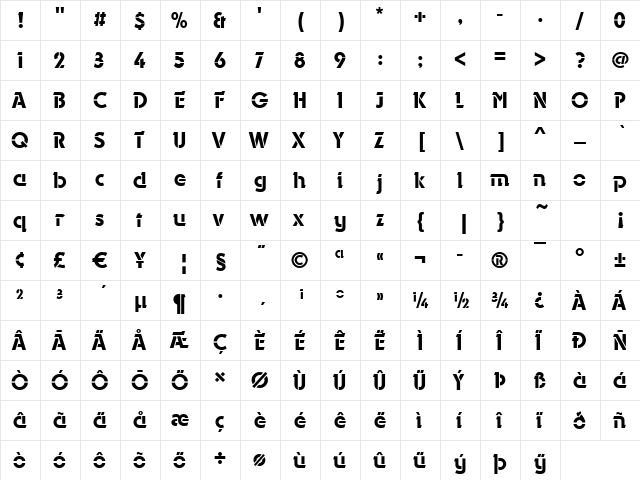
Durango-Alt-Medium Regular
Design Context for Durango-Alt-Medium Typeface
Durango-Alt-Medium takes a measured approach to typography — its balanced proportions and neutral character make it a reliable workhorse for both digital and print work.